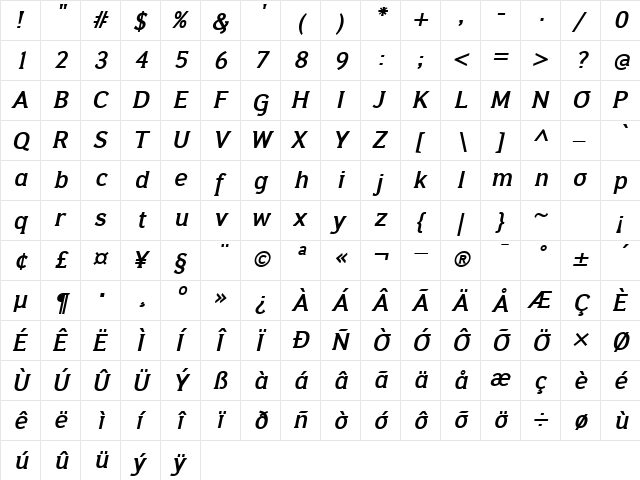
IdeologicaBold Italic Regular Font Preview
Design Context for IdeologicaBold Italic Typeface
IdeologicaBold Italic takes a measured approach to typography — its balanced proportions and neutral character make it a reliable workhorse for both digital and print work. Its italic angle brings a sense of urgency and motion to the letterforms. Its bold stroke weight gives it real presence on the page.
Pro Tip: Use IdeologicaBold Italic for emphasis, pull quotes, and subheadings where its slanted energy can add rhythm to the layout.